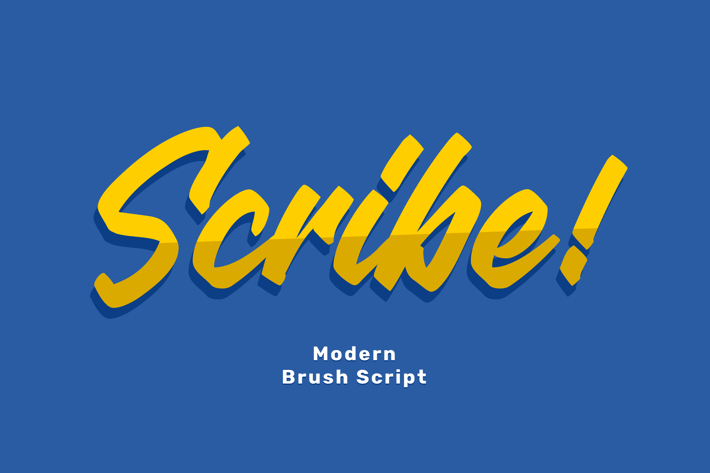
Brush Script Font
Scribe is a modern brush script inspired by graffiti style. Bold and modern-retro look with clean brush style makes it perfect for logotype, quotes, headlines, posters, graffiti artworks, and much more!